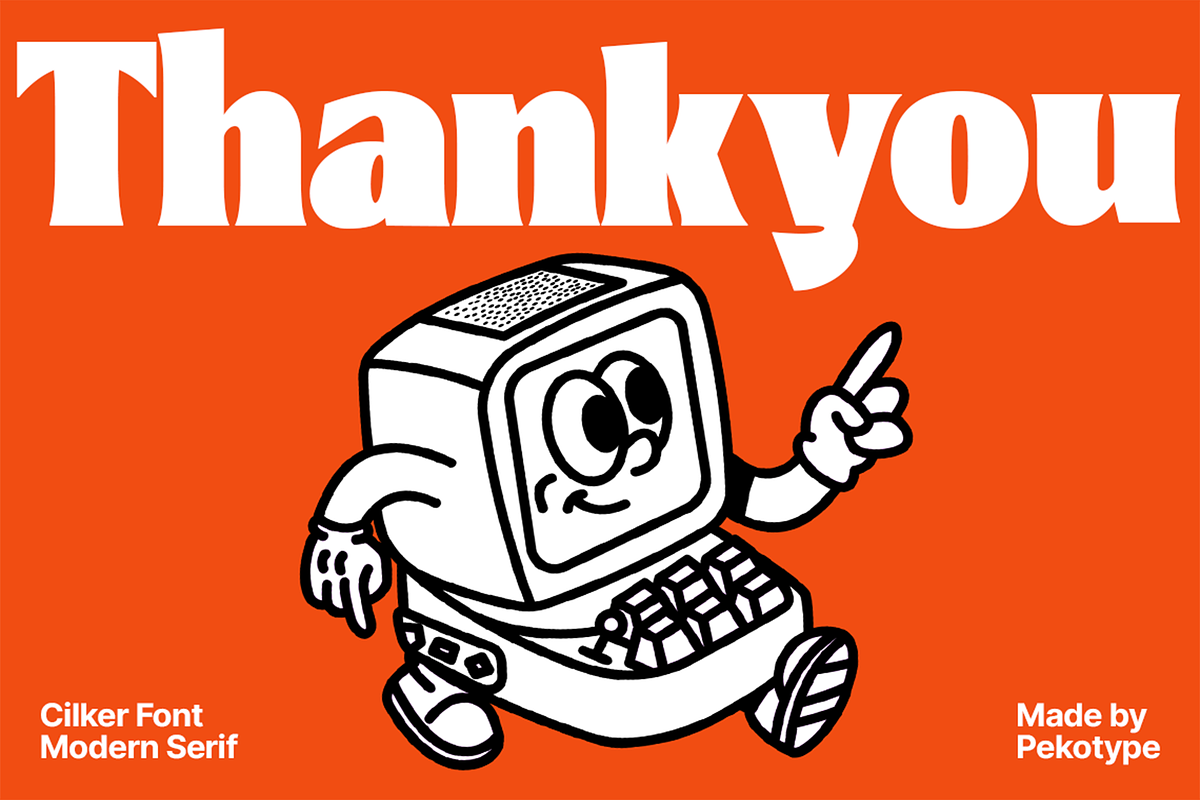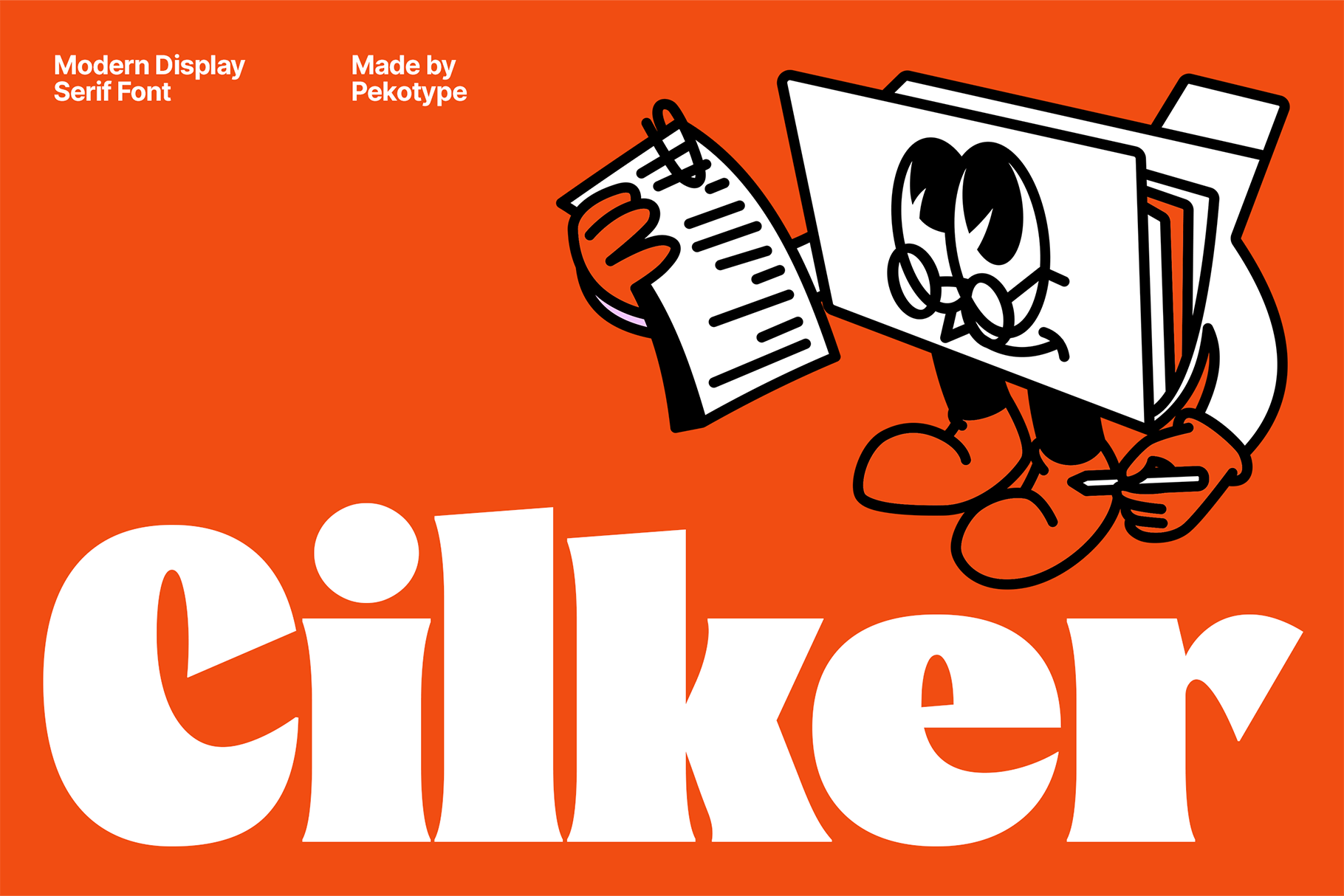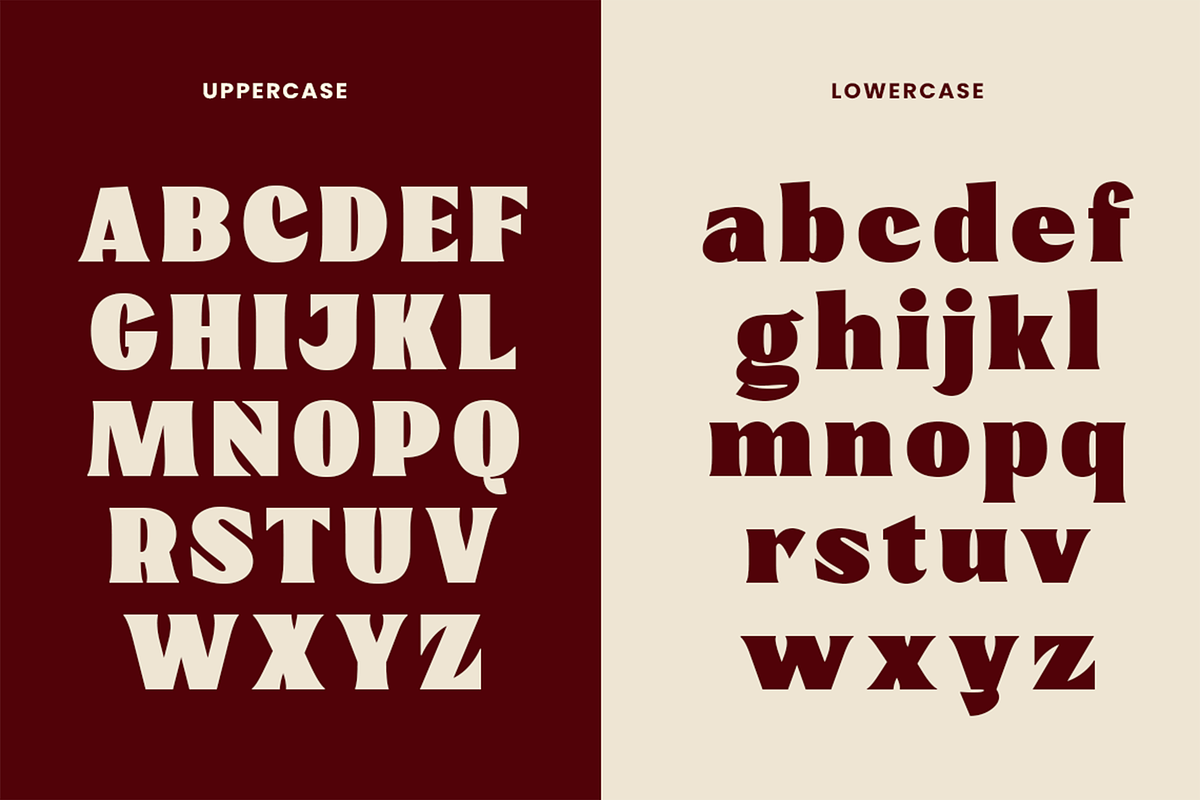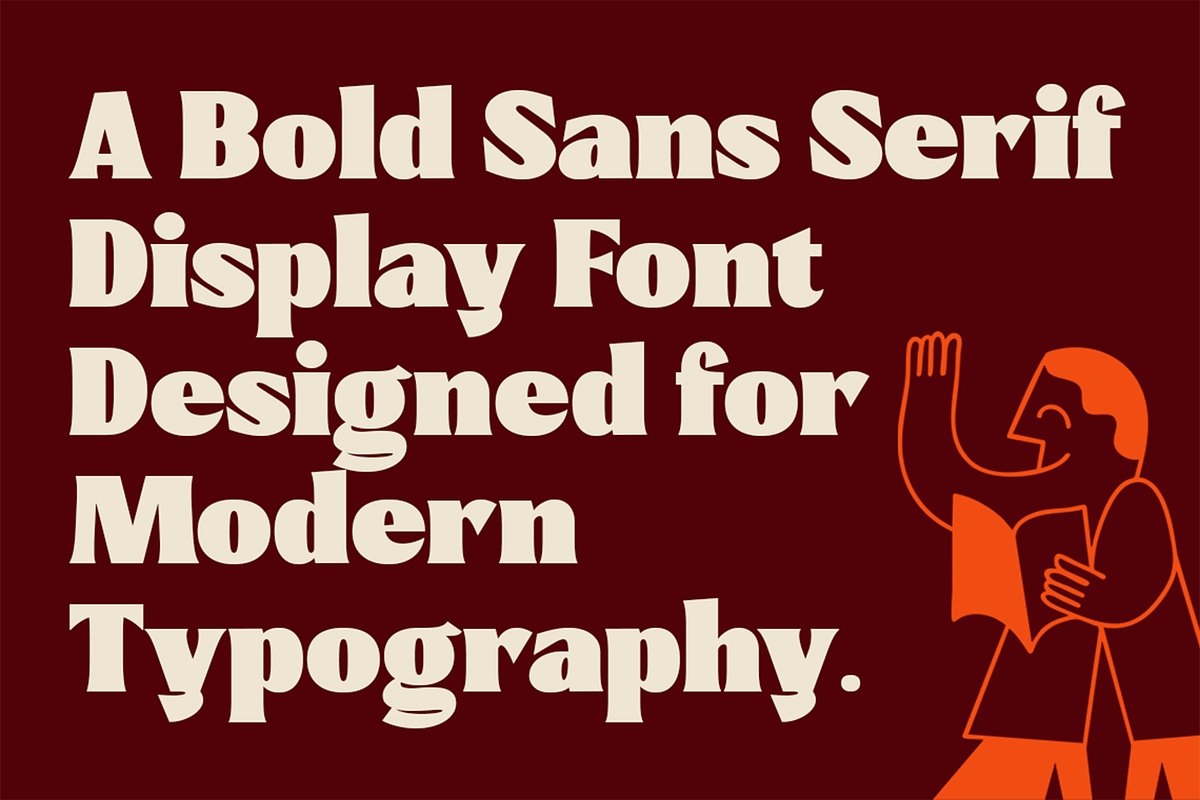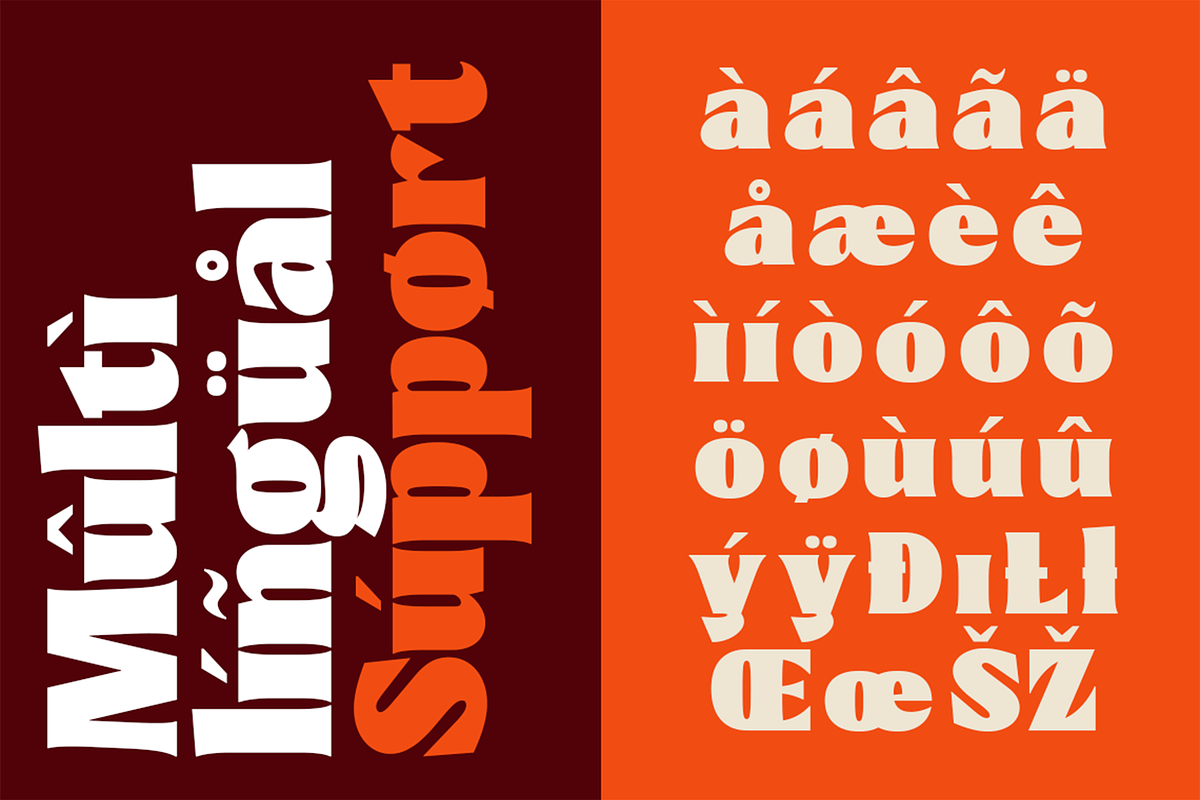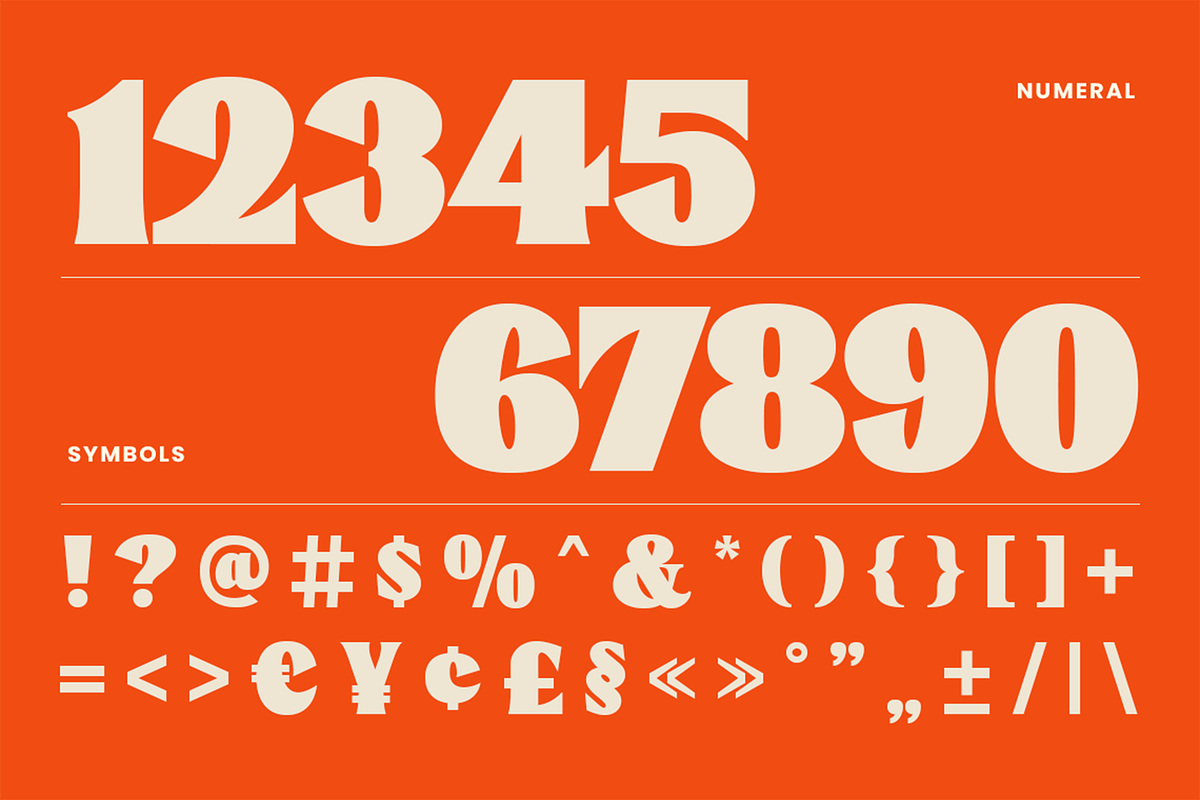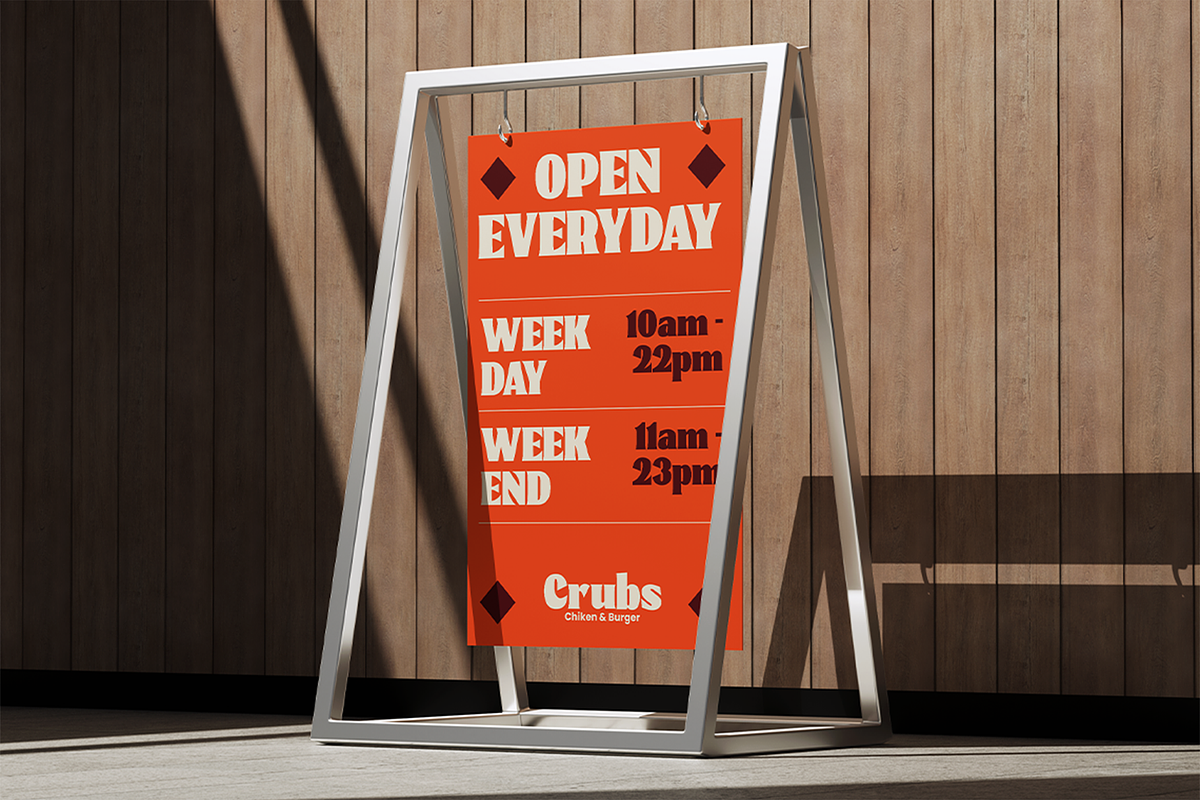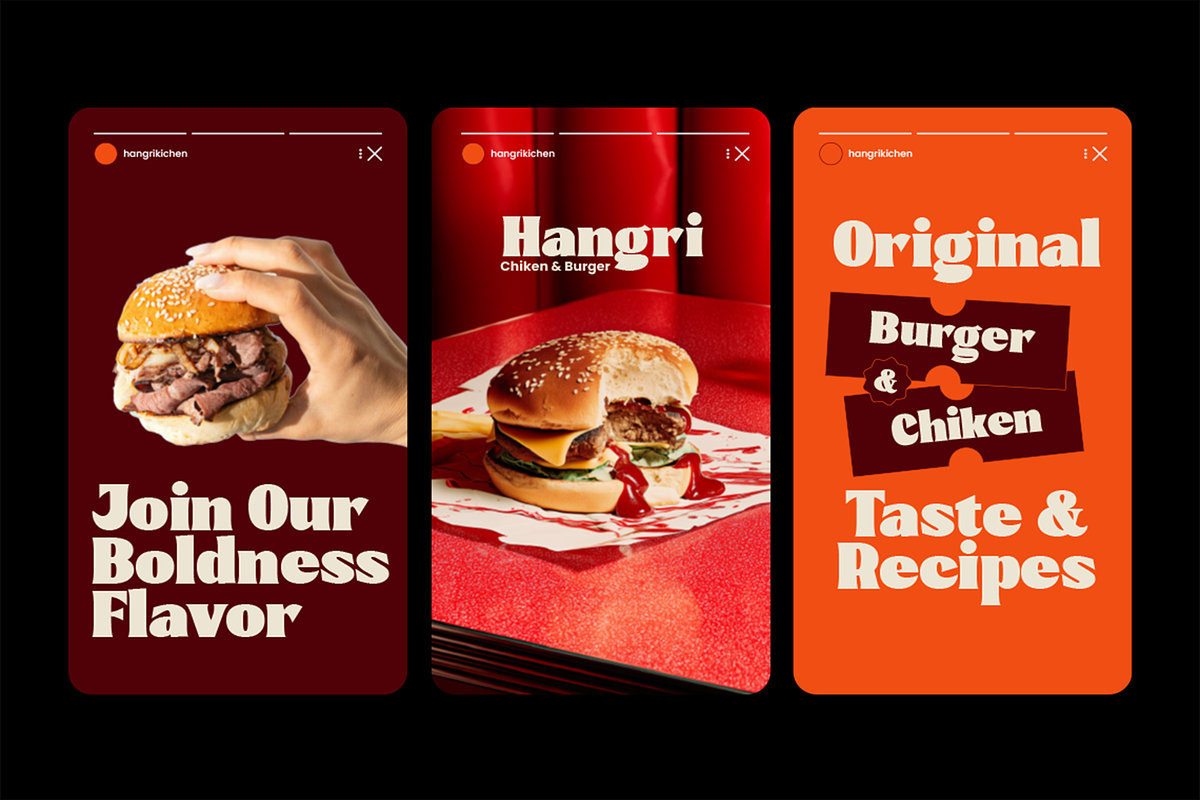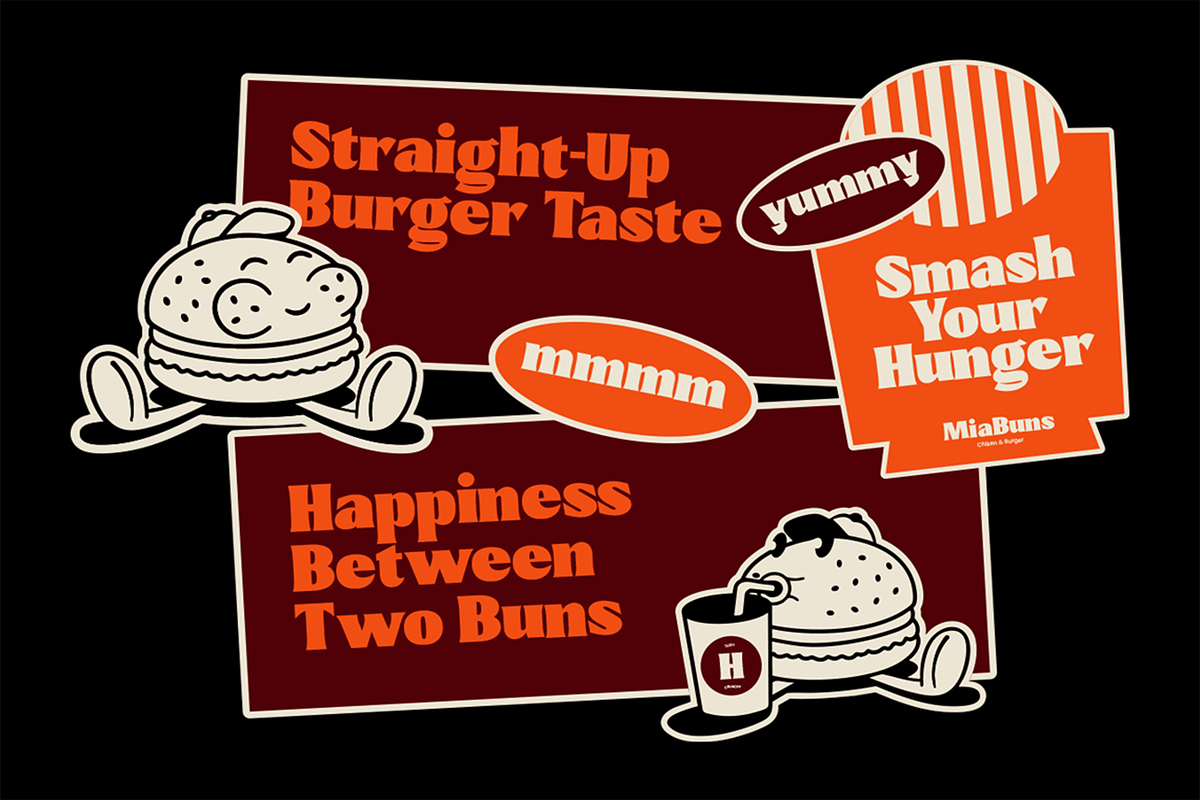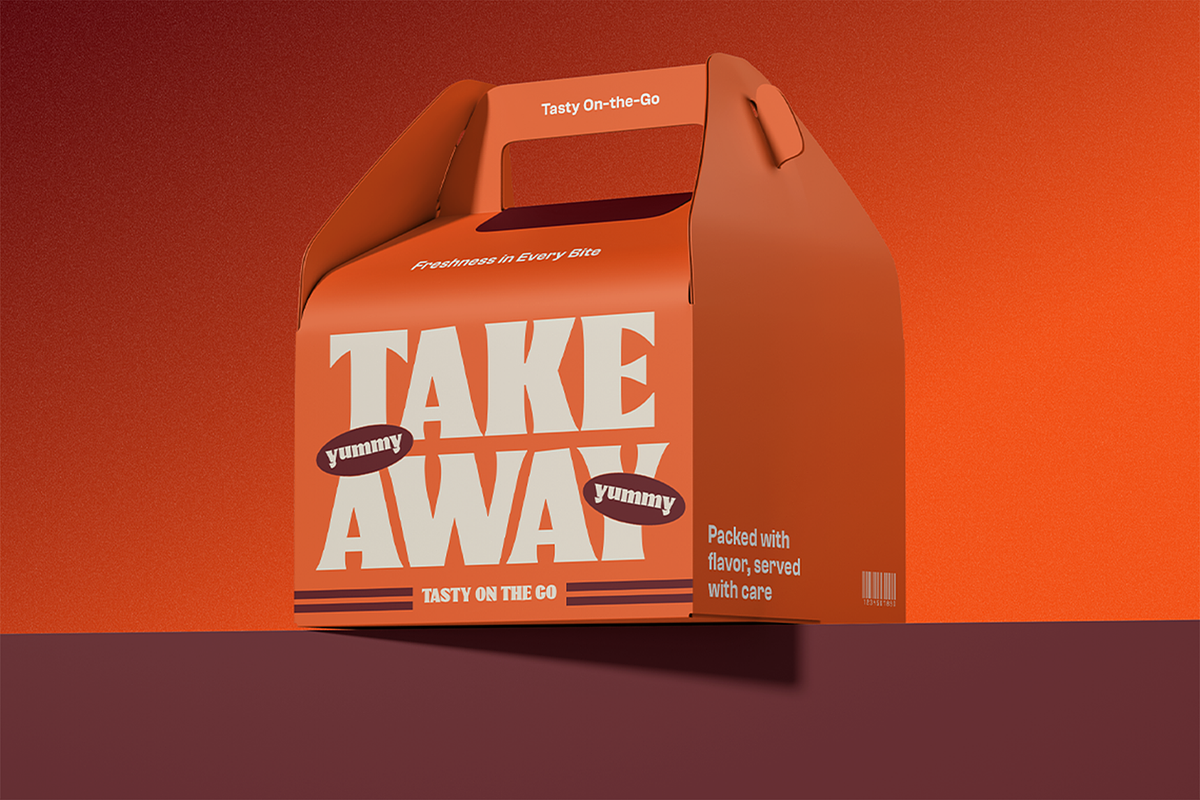
Cilker – Bold Modern Display Font
CILKER – Bold Modern Sans Serif Display Font
CILKER is a bold and modern sans serif display typeface created to make a strong visual statement. With thick strokes, confident shapes, and a playful yet clean construction, CILKER delivers high impact and excellent readability—perfect for designs that need to stand out instantly.
Designed with uppercase and lowercase characters and complete multilingual support, CILKER is highly versatile for both digital and print use. Its modern sans serif style makes it ideal for branding, logos, packaging, menus, posters, marketing campaigns, social media graphics, advertisements, and promotional materials, especially for food, lifestyle, and youth-oriented brands.
CILKER combines modern typography with bold personality, making it a reliable choice for headlines, titles, and eye-catching visuals. Whether you’re working on restaurant branding, product packaging, digital ads, or creative marketing assets, CILKER Typeface brings energy, clarity, and a contemporary edge to your design.
If you’re looking for a bold sans serif font that feels modern, fun, and professional at the same time, *CILKER is built to deliver maximum visual impact.